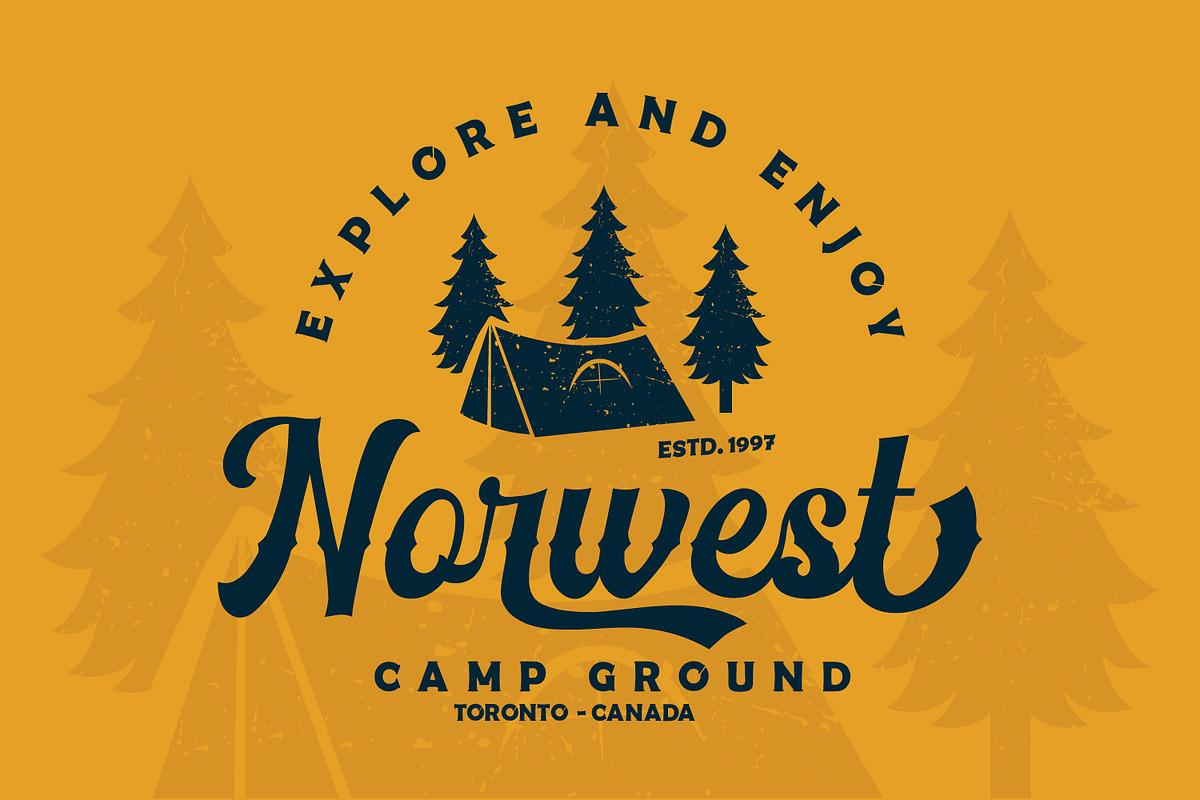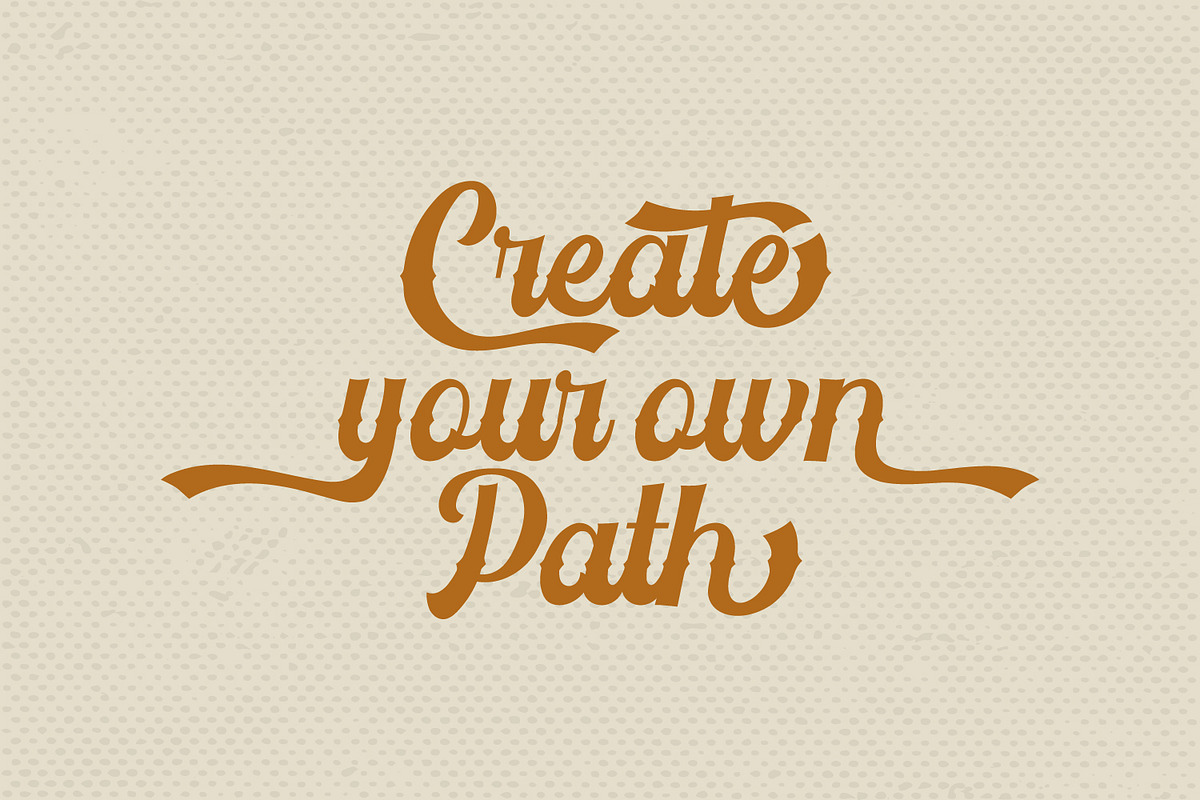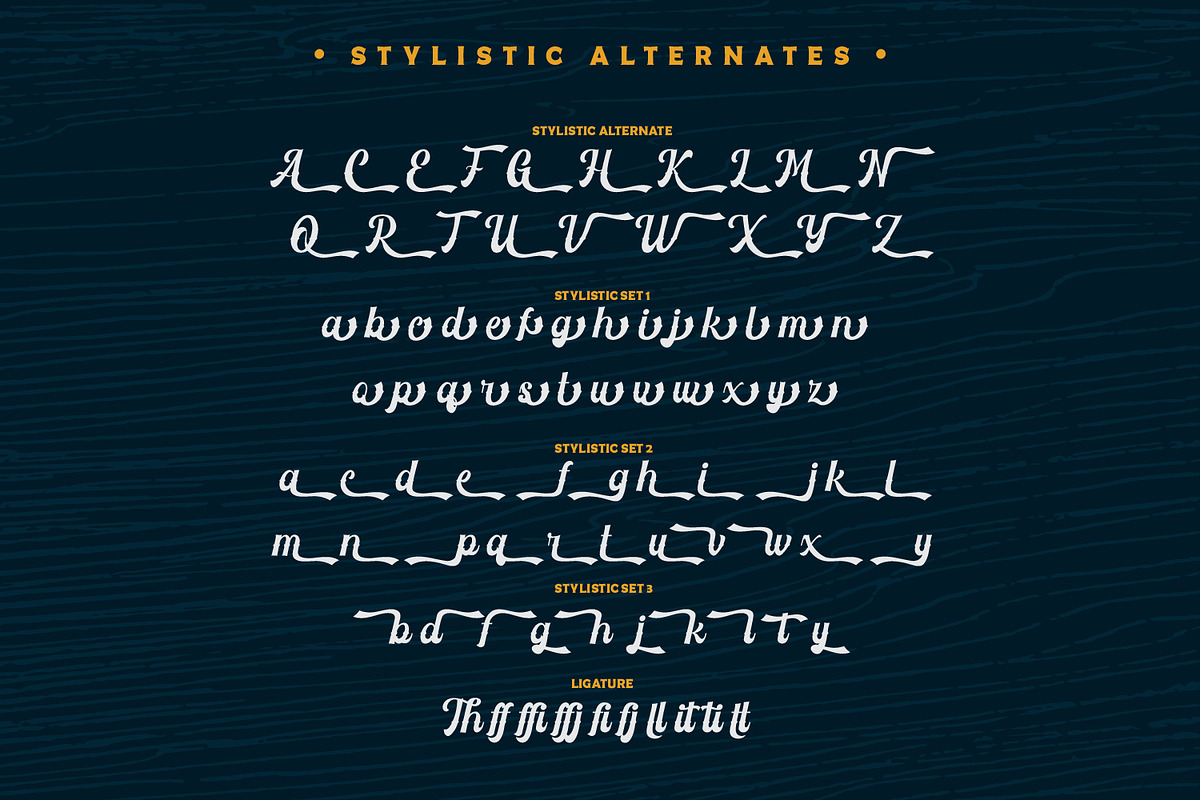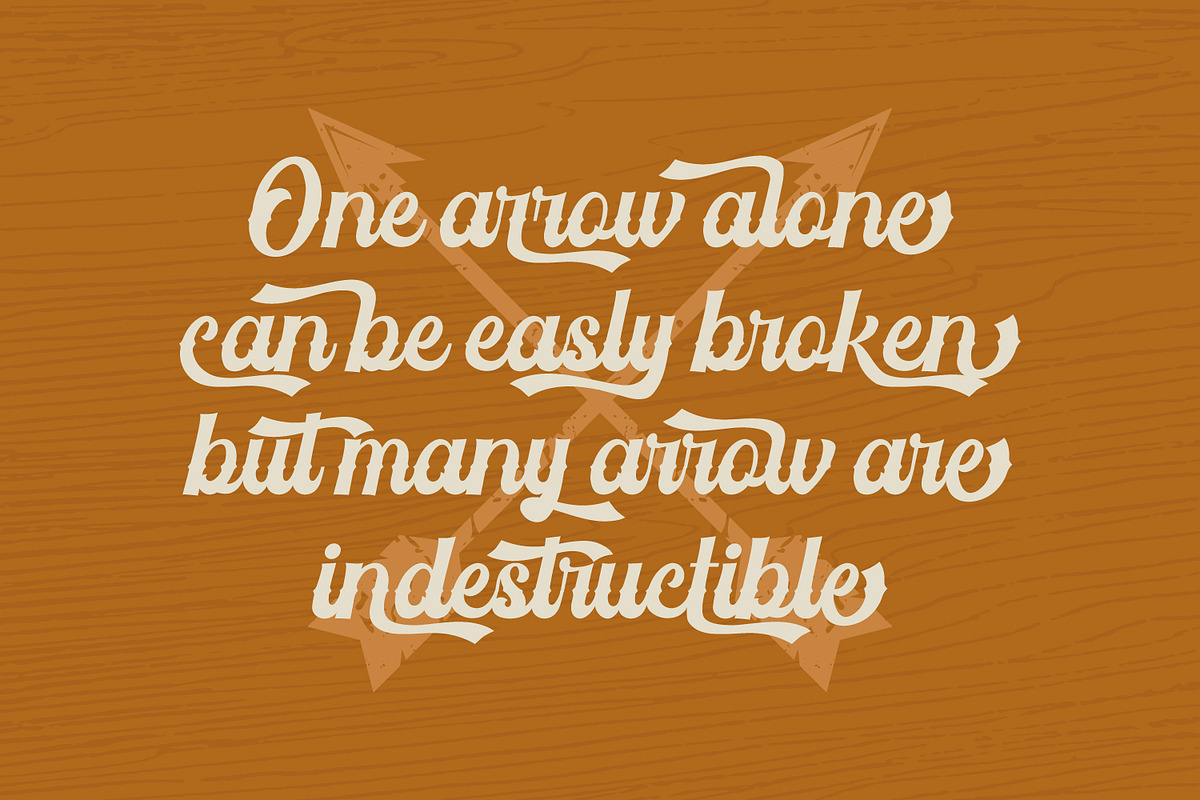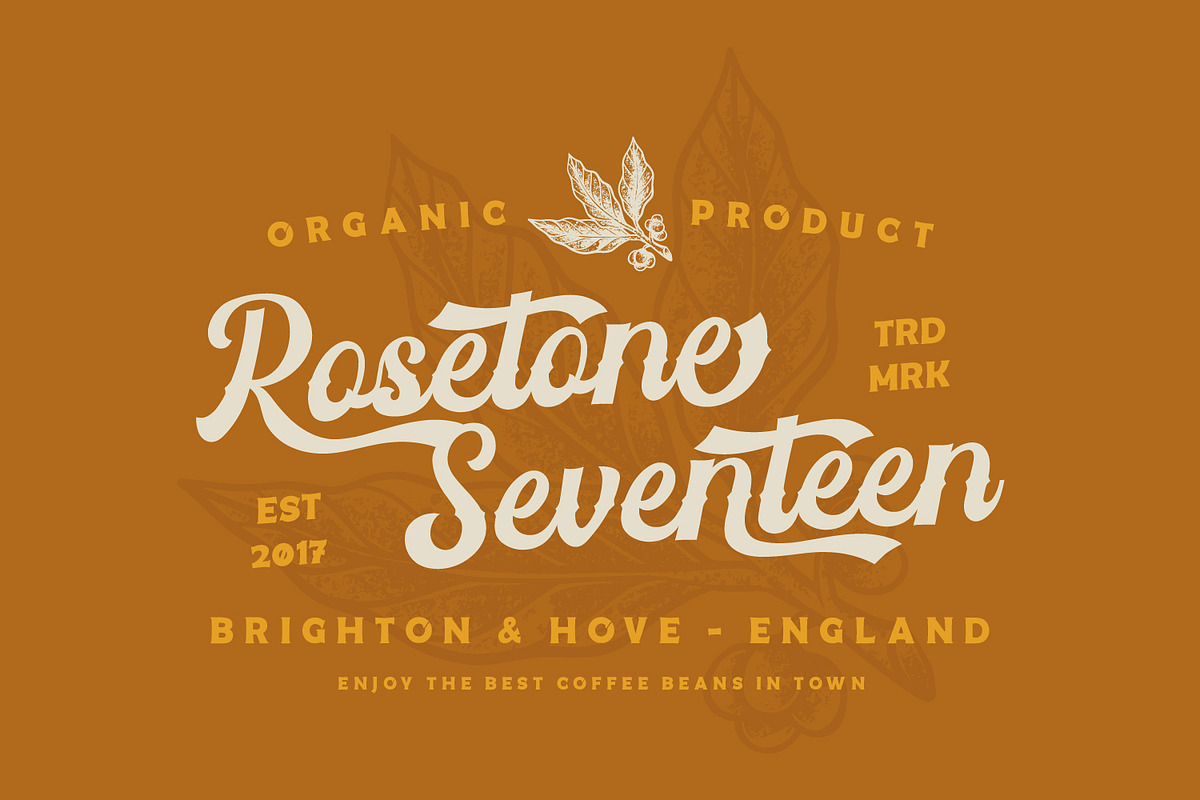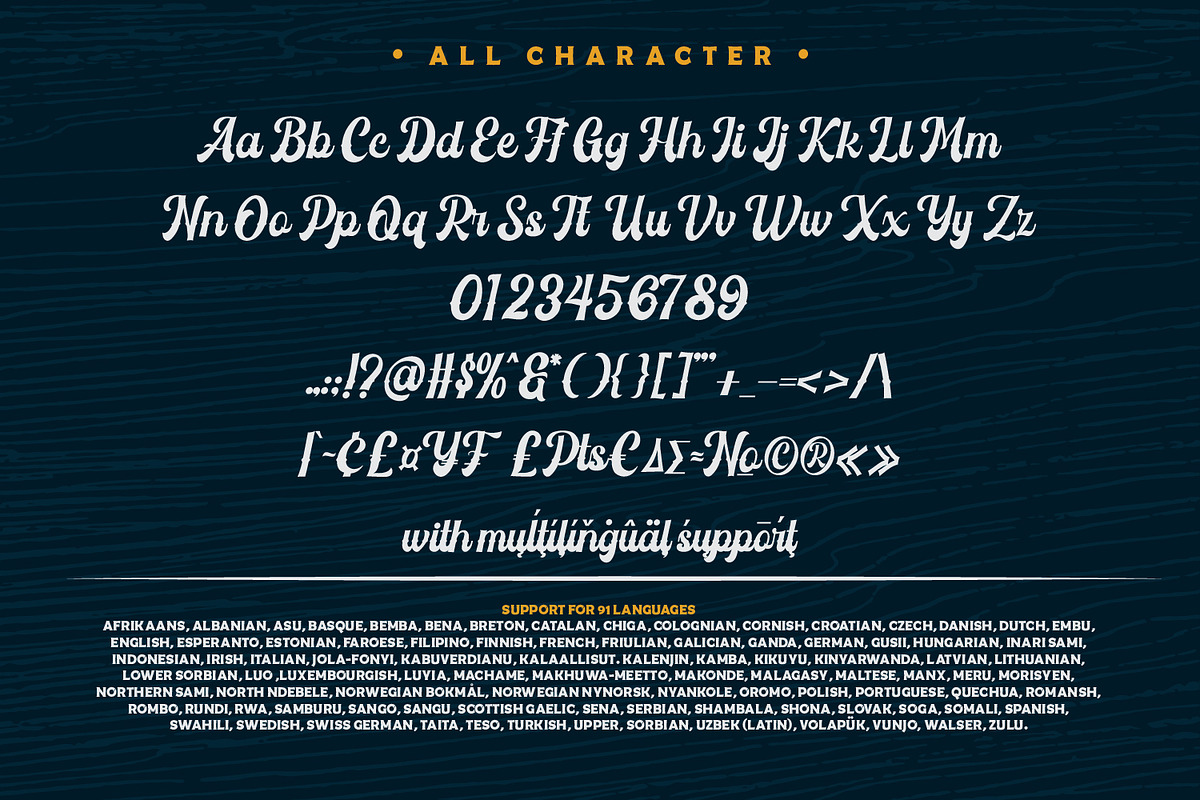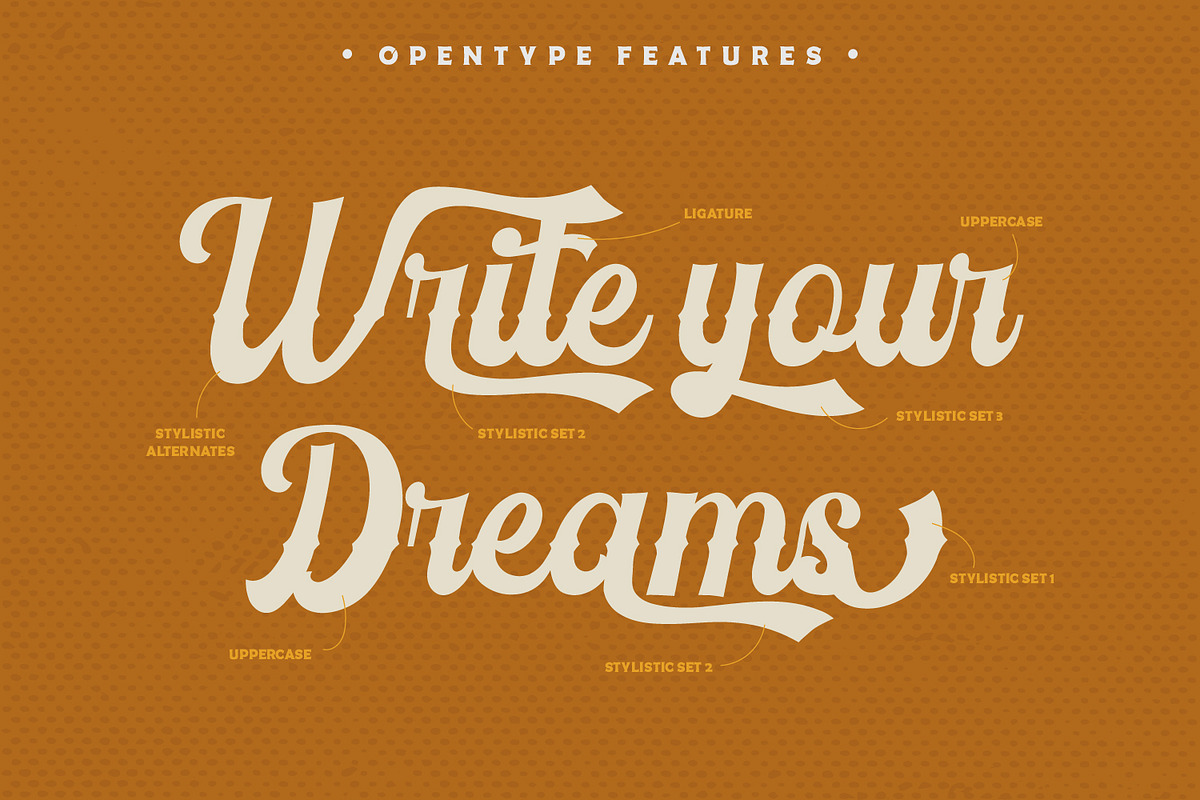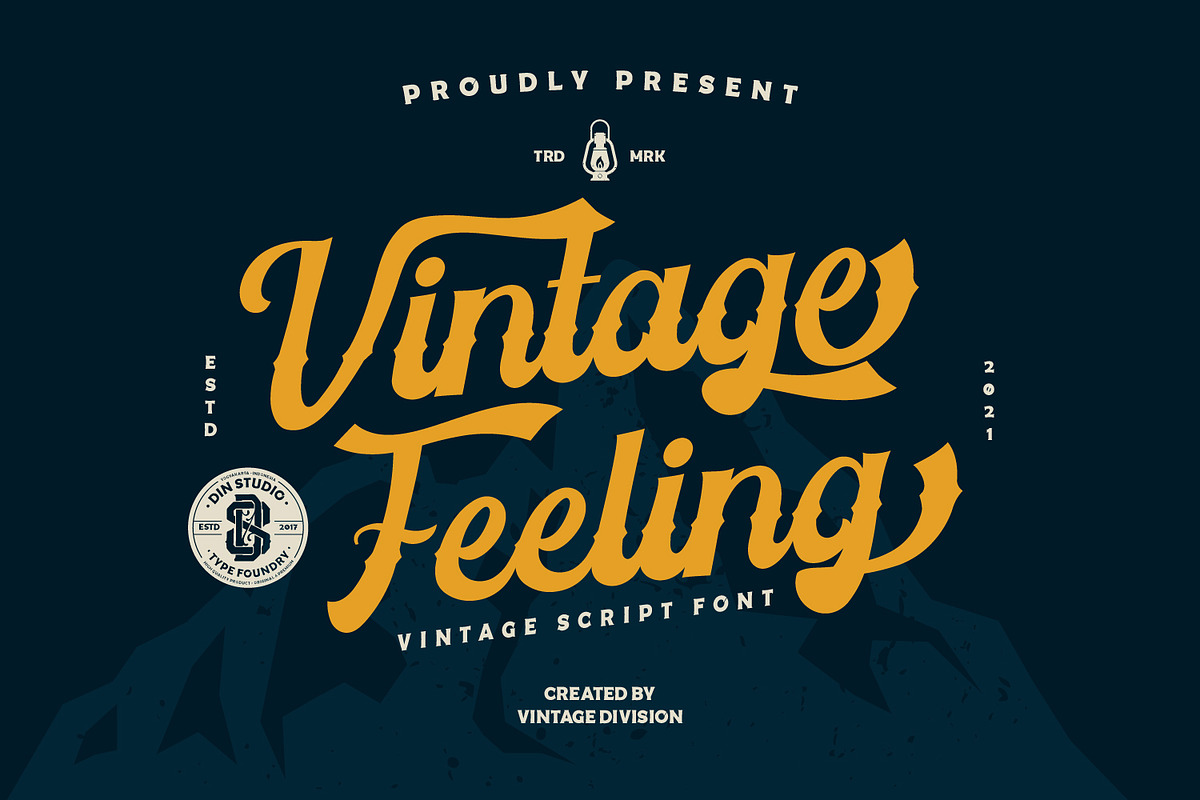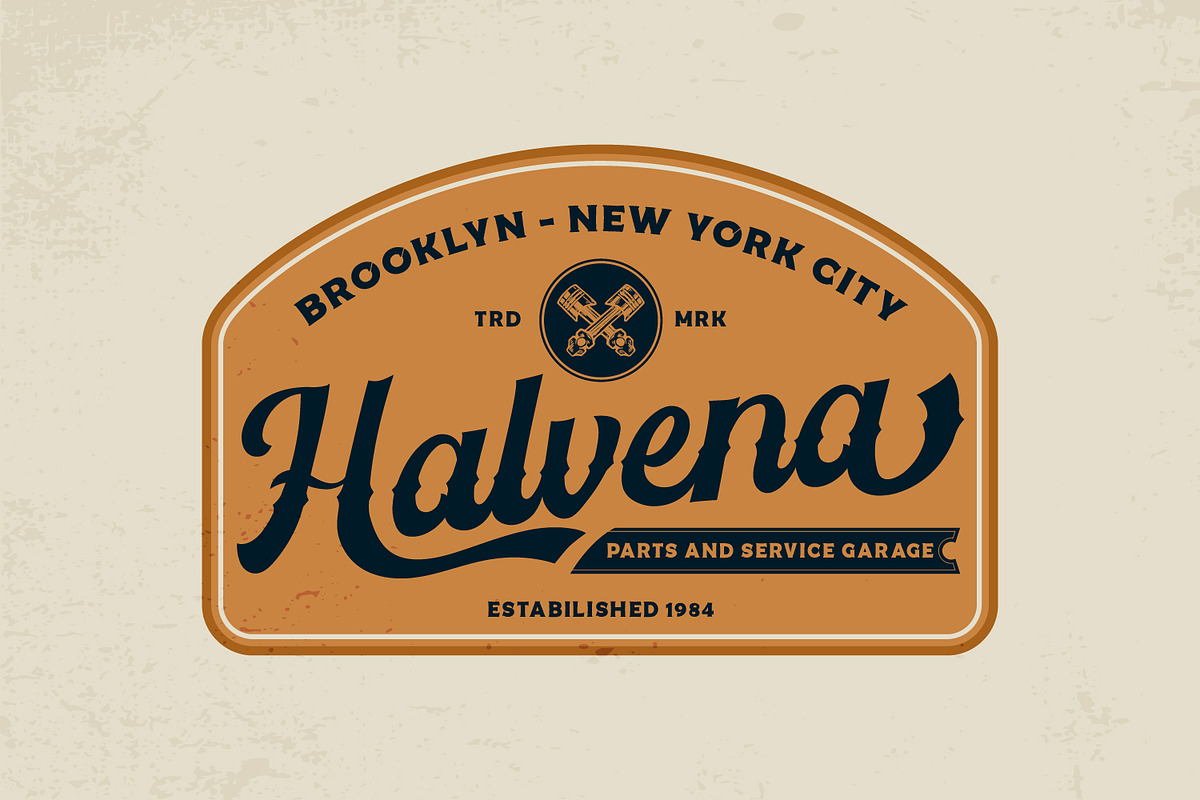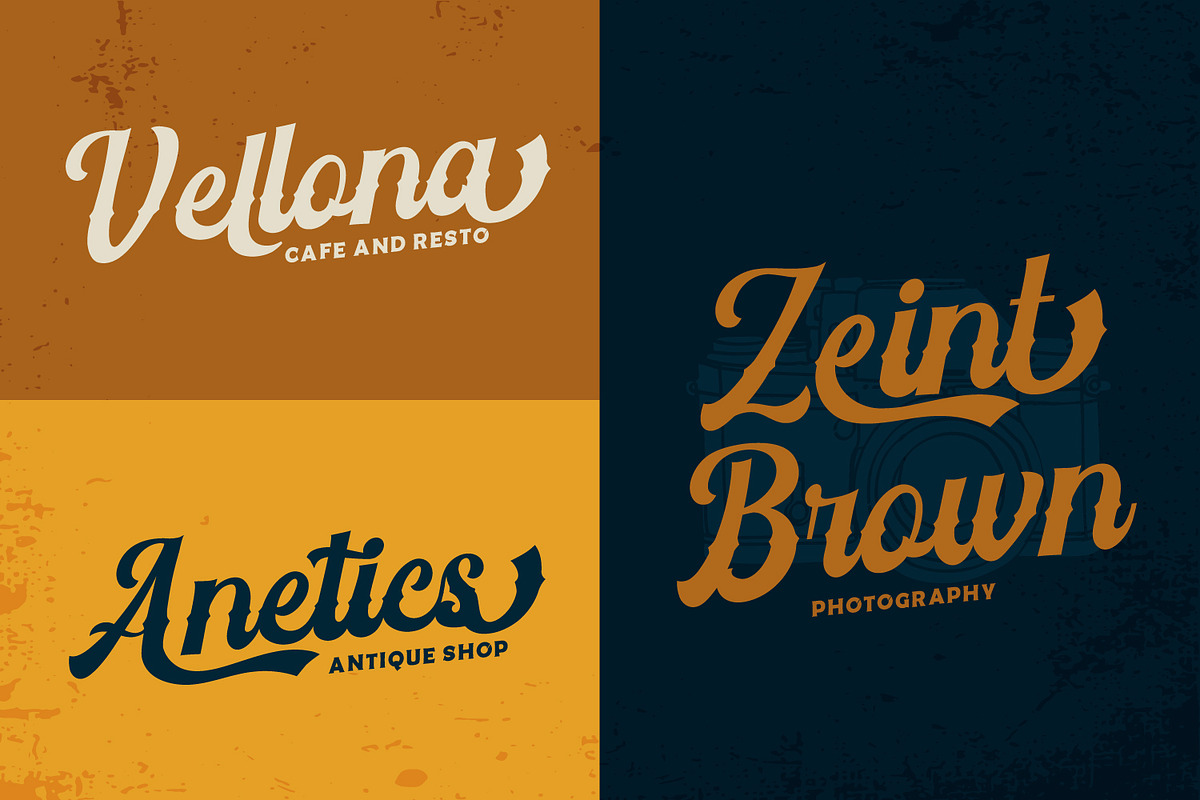
Vintage Feeling
Vintage Feeling-A Script Font
Vintage Feeling is a script font beautifully handcrafted to make your guests sing and elevate your projects! Every stroke and curve was created to entice happiness and elegance. This typeface with artistic style looks very interesting for loads of different projects and promotions. A great all-in-one package for your logo, book cover, poster, t-shirt, branding, and advertisement needs.
- Stylistic Set